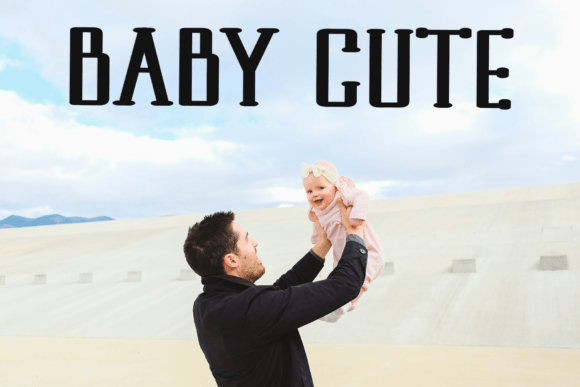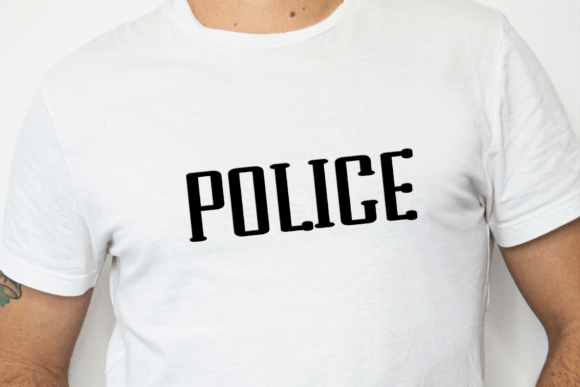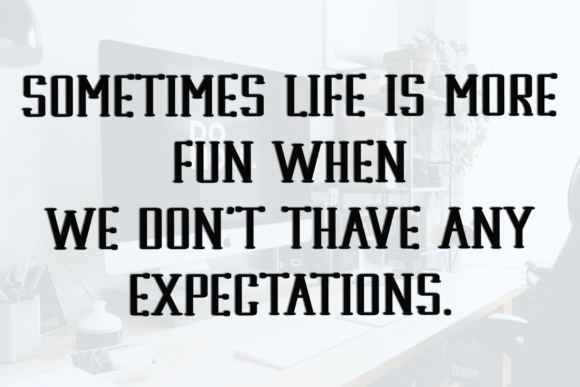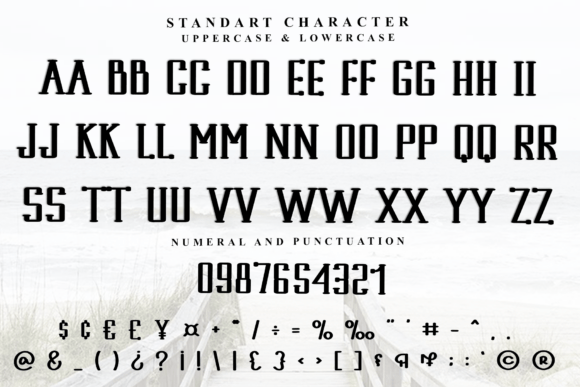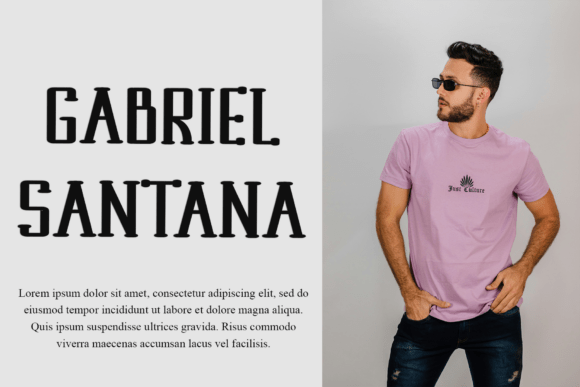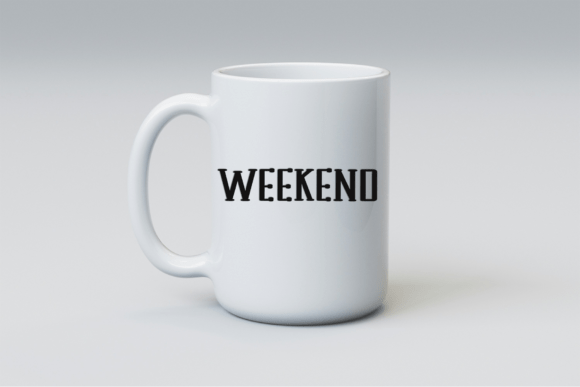
Introduction to College Student Font
Remember that late-night study session where you spent hours perfecting your design project? The rush of excitement when your vision finally came to life? For many designers, moments like these are what make it all worth it. And what’s a great design without the right font to bring it together? Enter the College Student Font, a beautiful and eye-catching typeface that’s perfect for any creative project.
As a valuable resource for designers, the College Student Font offers a unique blend of style and versatility. With its soft, distinctive strokes, this font is sure to add a special touch to any design. Whether you’re working on a personal project or a client-based task, this high-quality font is sure to impress. Plus, its transparent background makes it easy to integrate into any design, from digital to print. And the best part? It’s available for free download, making it a must-have in any designer’s toolkit.
Key Features of College Student Font
- High-quality font design suitable for various creative projects, including academic papers and presentations.
- Unique characteristics: Includes a range of educational-themed glyphs and symbols, making it a perfect fit for college students and educators.
Honest Review: College Student Font
As a designer, I’m always on the lookout for high-quality design resources to enhance my creative projects. Recently, I stumbled upon the College Student Font, which promises to deliver a fresh and youthful vibe. In this review, I’ll share my honest thoughts on this font.
- The College Student Font has a unique and playful character that’s perfect for targeting a younger audience.
- The font is highly customizable, making it easy to adjust to your design needs.
- The font may not be suitable for more formal or professional designs, as it has a casual and playful feel.
Overall, the College Student Font is a great addition to any designer’s toolkit. While it may have some limitations, its unique character and free availability make it a worthwhile download. If you’re working on a creative project that targets a younger audience, this font is definitely worth considering.
Common Use Cases for College Student Font
The College Student Font is ideal for creative projects, such as posters, flyers, or social media graphics. You can also use the font to create custom logos, business cards, or letterheads. The font’s high quality and transparent background make it perfect for use in a variety of design applications.